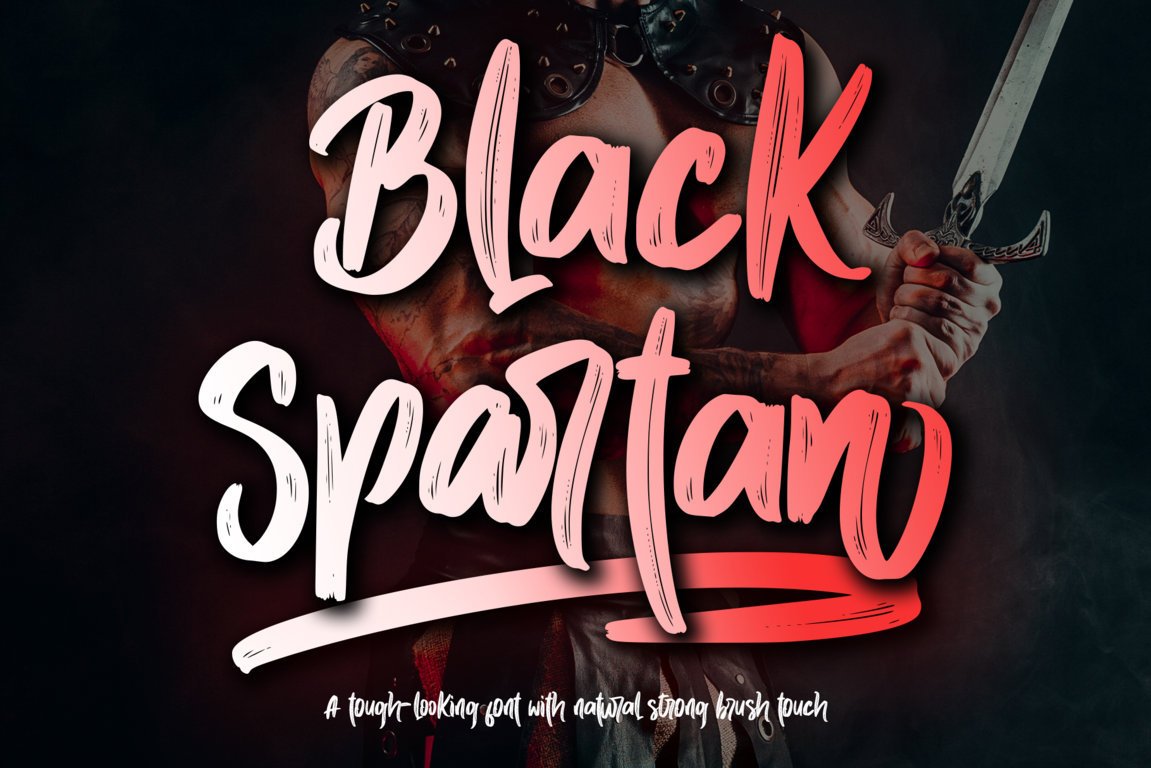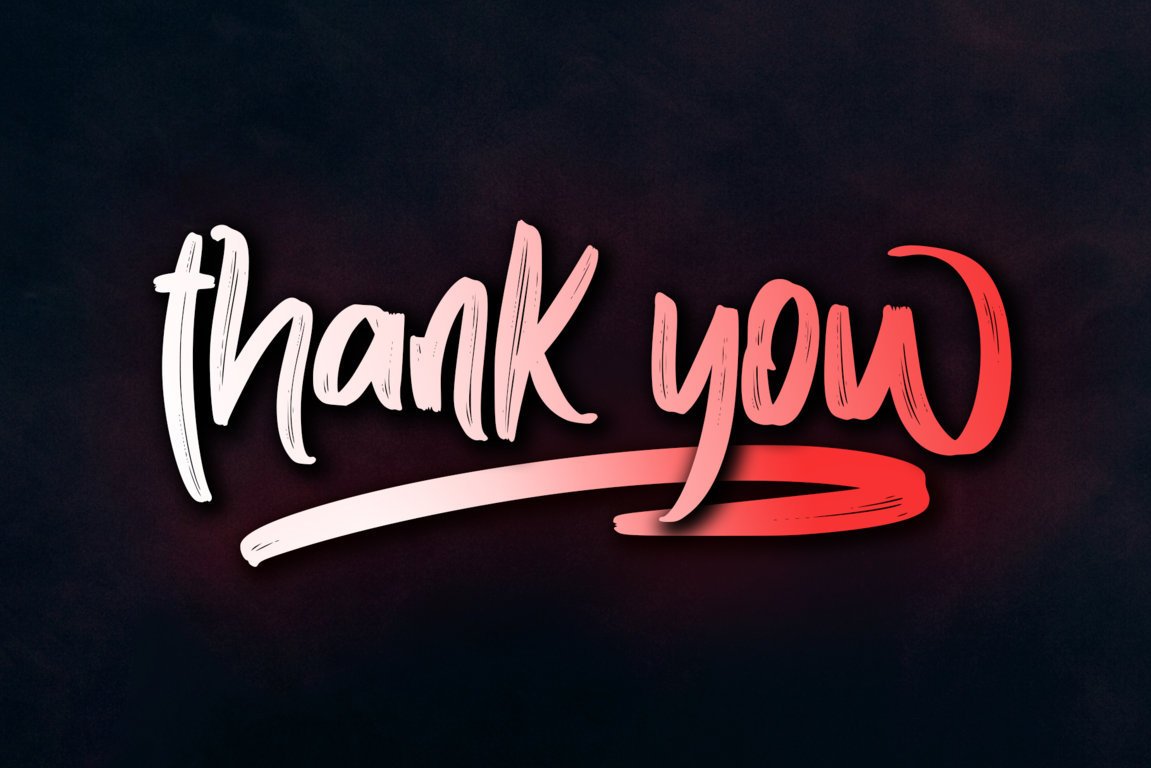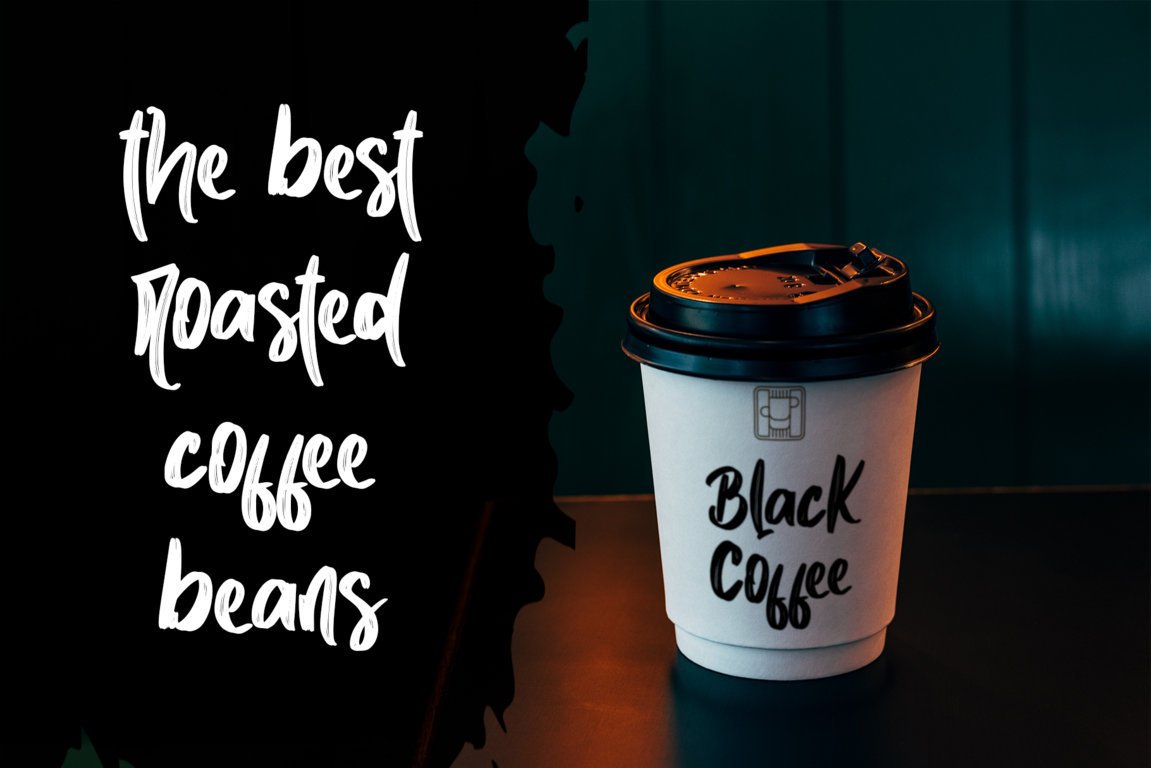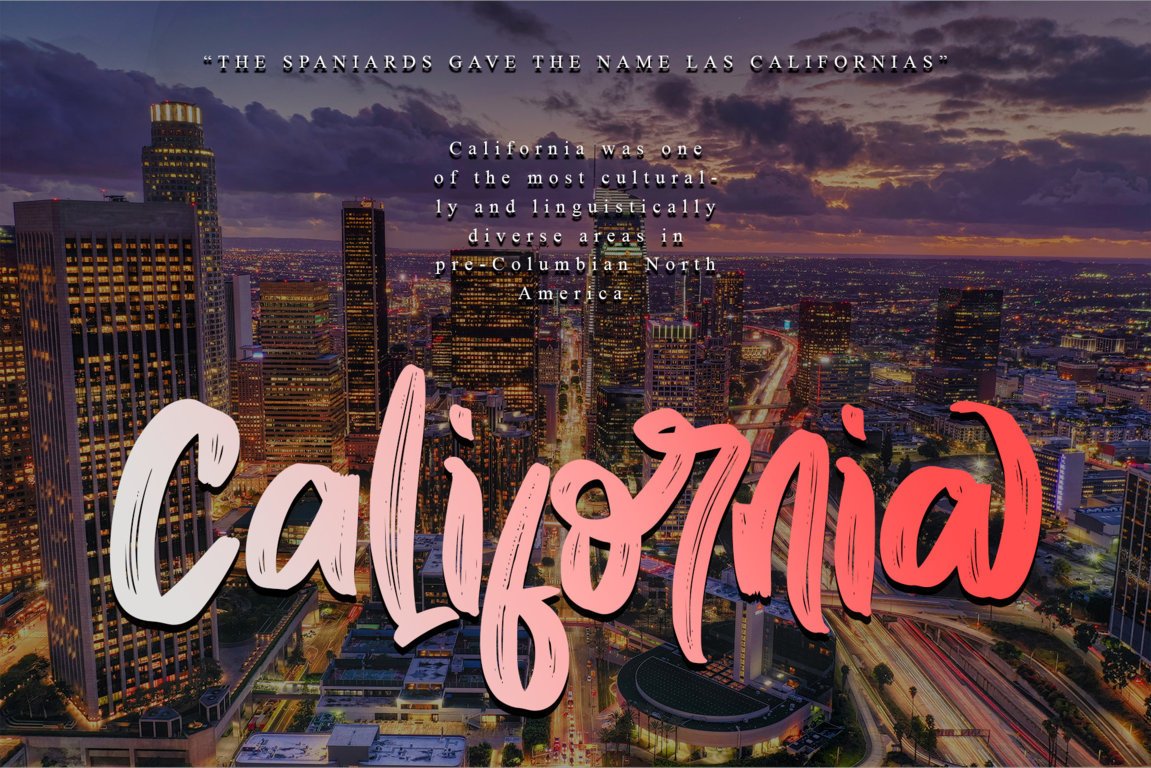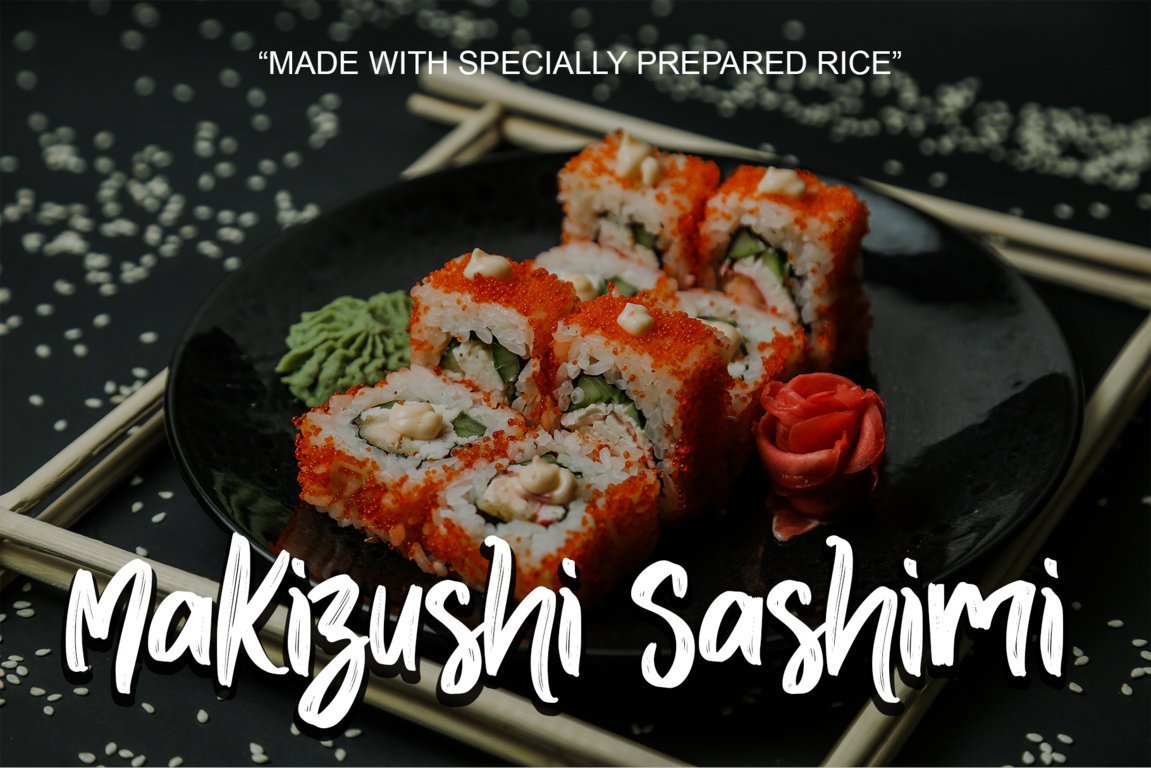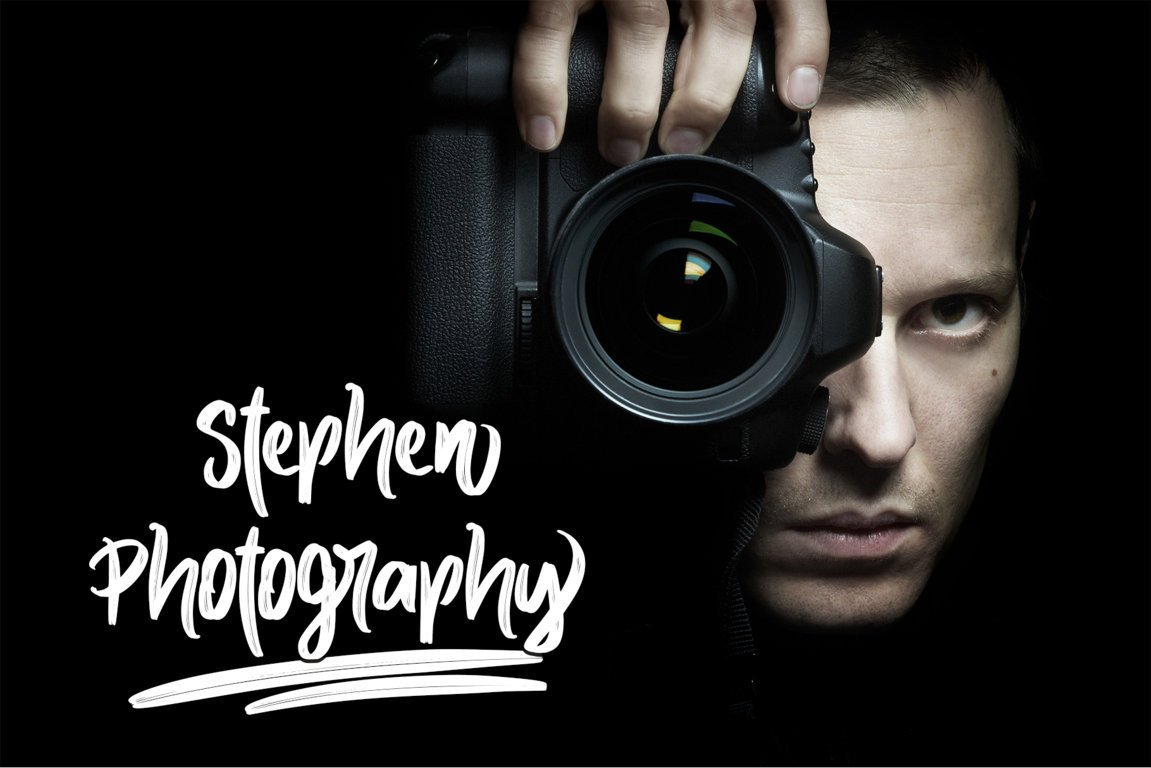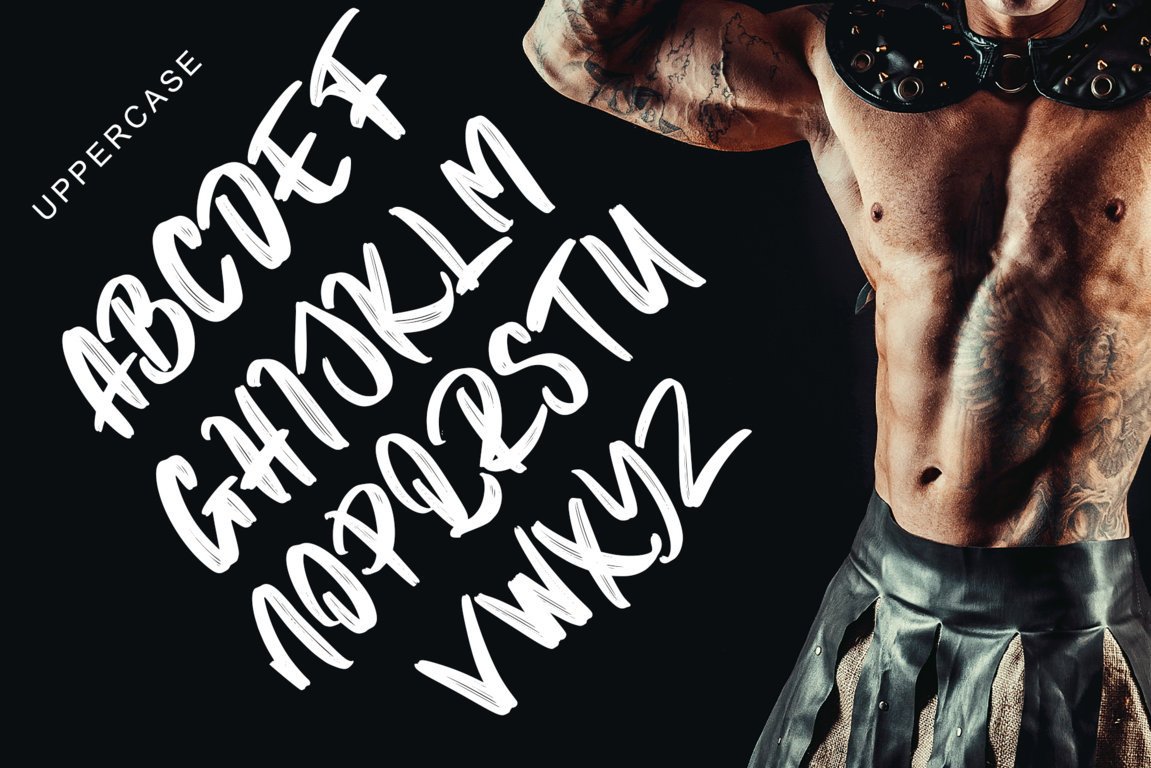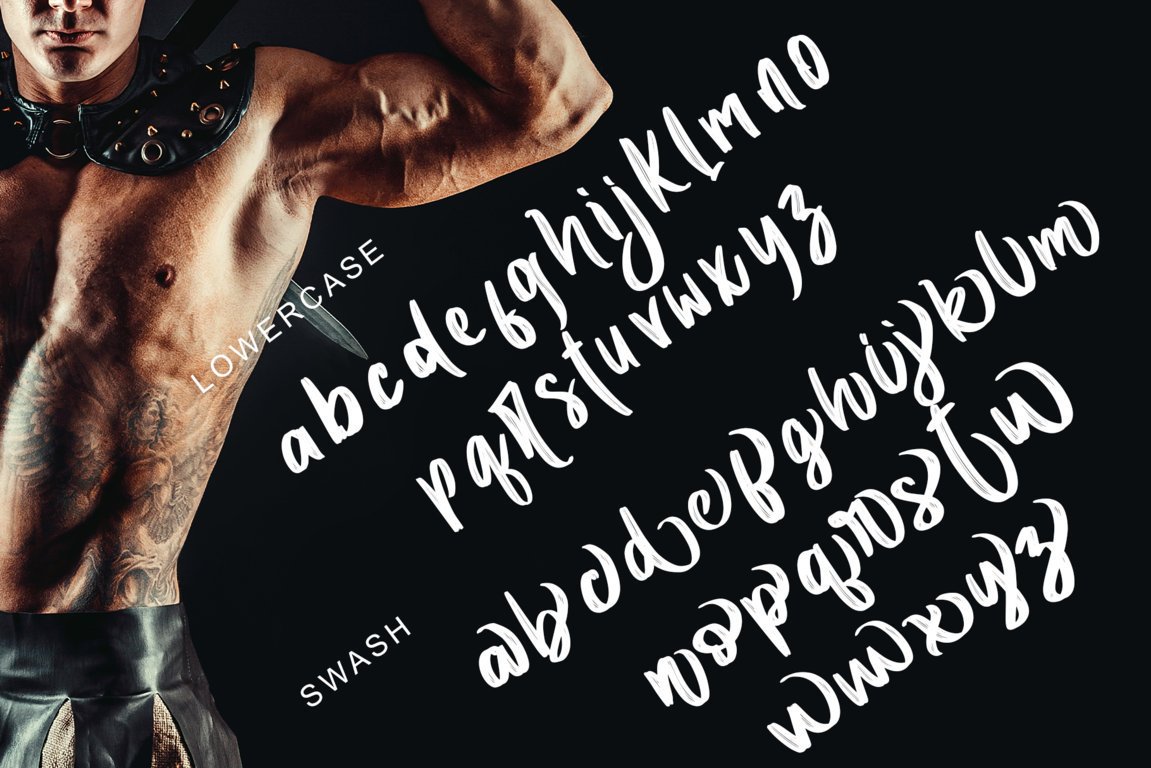
Black Spartan
Introducing “Black Spartan” – a bold handwritten font infused with personal charm and signature flair. With its quick dry strokes and confident style, Black Spartan brings a modern, edgy character to your work. Whether you’re designing for branding, product packaging, homeware, or creating stylish text overlays, this font delivers an authentic, handcrafted feel that stands out in any setting. Its dynamic and natural flow makes Black Spartan the perfect choice for logos, social media content, posters, or any other visual element that requires a cool, expressive touch. Fully PUA encoded and rich with alternate characters and swashes, this font is as functional as it is eye-catching.
Features:
• Support multilingual: ä ö ü Ä Ö Ü ß ¿ ¡
• Numerals & Punctuation
• Uppercase and lowercase letters
• Alternate, Swash & Ligature